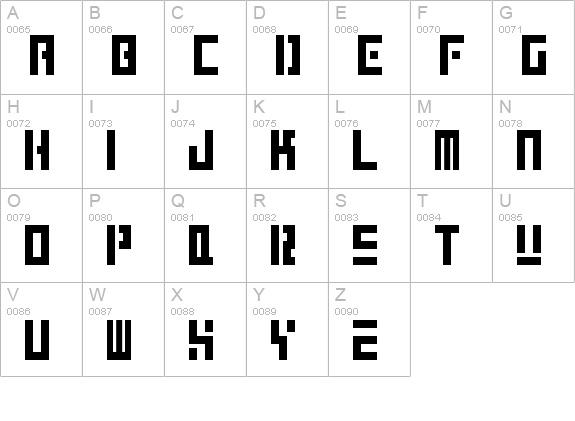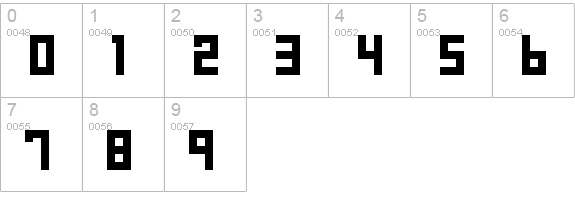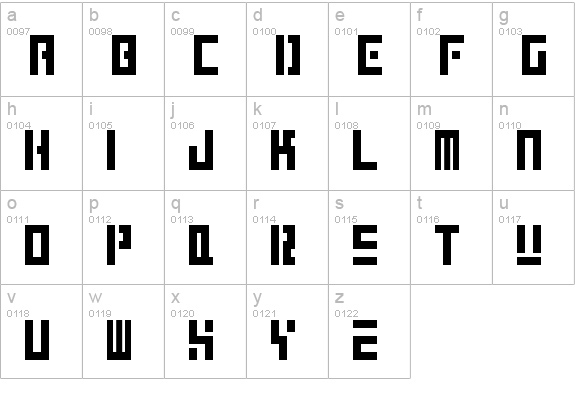
I2koukaku e Font Details
I2koukaku e font is a stunning and versatile typeface that combines modern aesthetics with a touch of elegance. Its sleek and crisp lines make it perfect for various design projects, from branding and advertising to packaging and editorial work. This font offers a wide range of characters, including uppercase and lowercase letters, numerals, punctuation marks, and special symbols, allowing you to create visually captivating designs with ease. The meticulously crafted letterforms exhibit a sense of balance and harmony, making I2koukaku e font an excellent choice for both professional and personal projects. One of the best things about I2koukaku e font is that it is available for free download at FontsMarket.com. This means that you can easily obtain this remarkable font without any cost, making it an ideal option for designers, artists, and enthusiasts who are looking for high-quality typefaces without breaking the bank. Whether you are working on a website, a logo, a poster, or any other design project, I2koukaku e font will elevate your work to new heights. Its versatility and timeless appeal ensure that your designs will stand out and leave a lasting impression on your audience. Don't miss the opportunity to enhance your creative projects with this incredible font. Download I2koukaku e font for free today at FontsMarket.com and unlock a world of design possibilities.